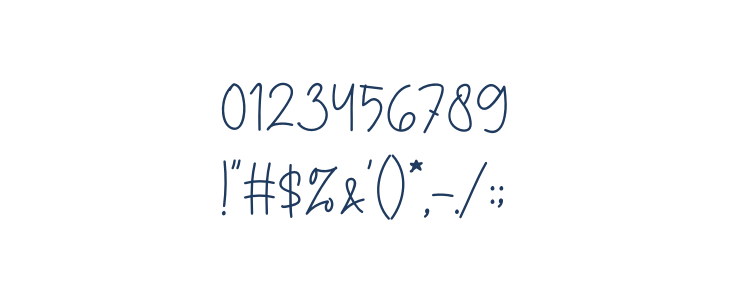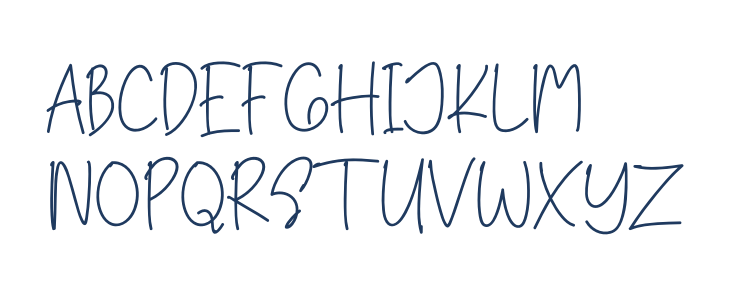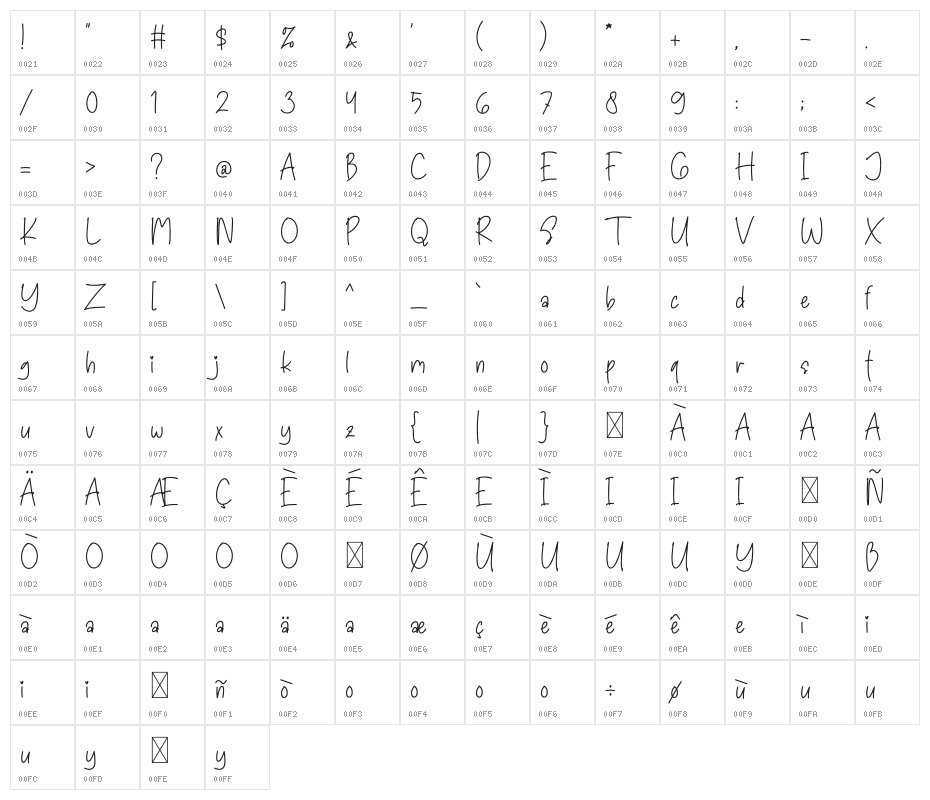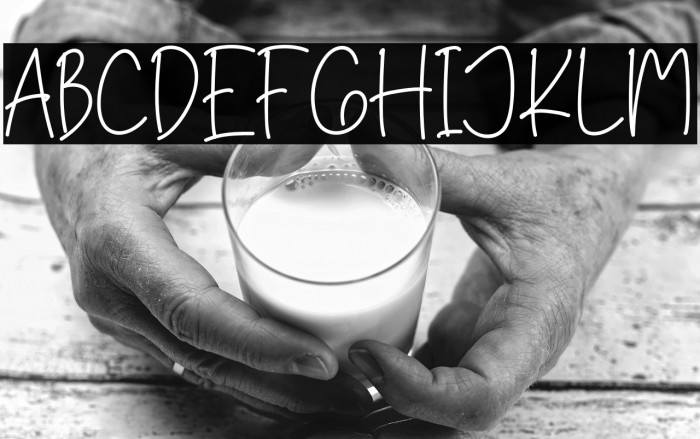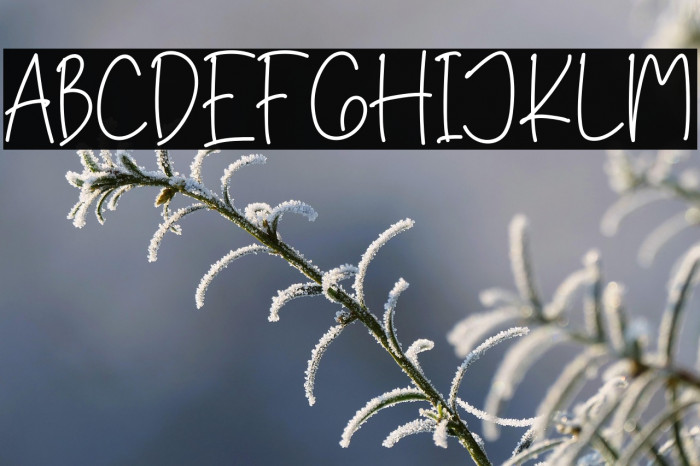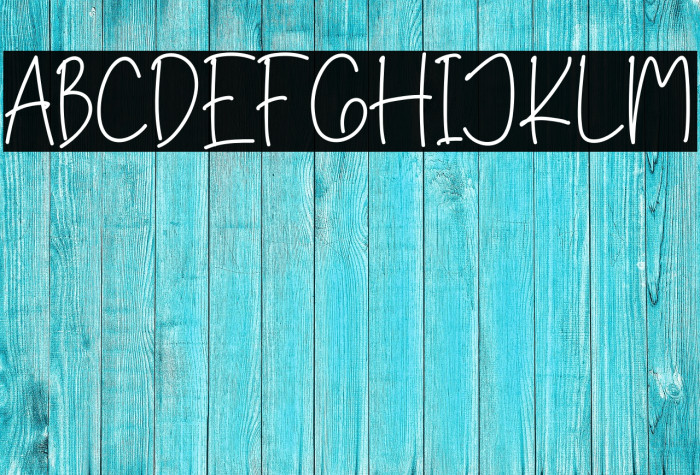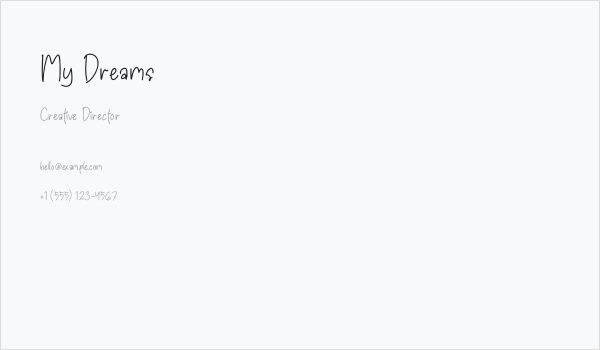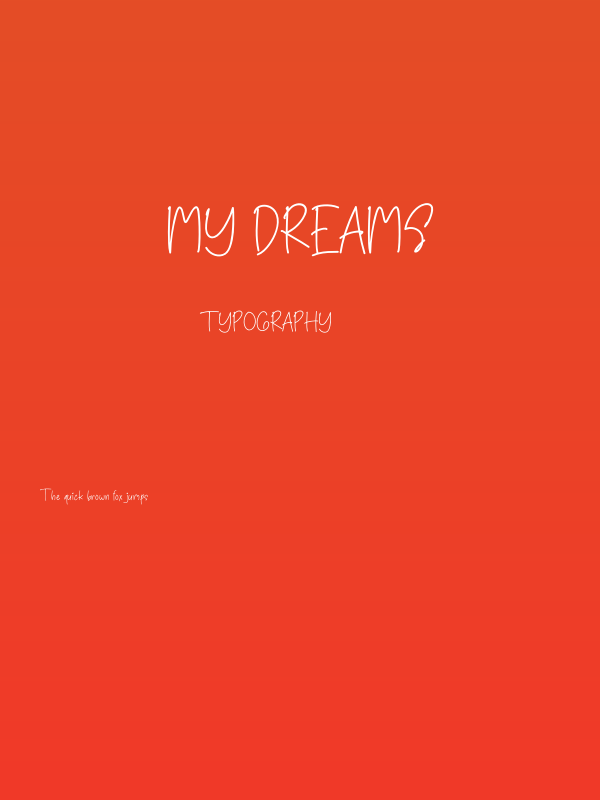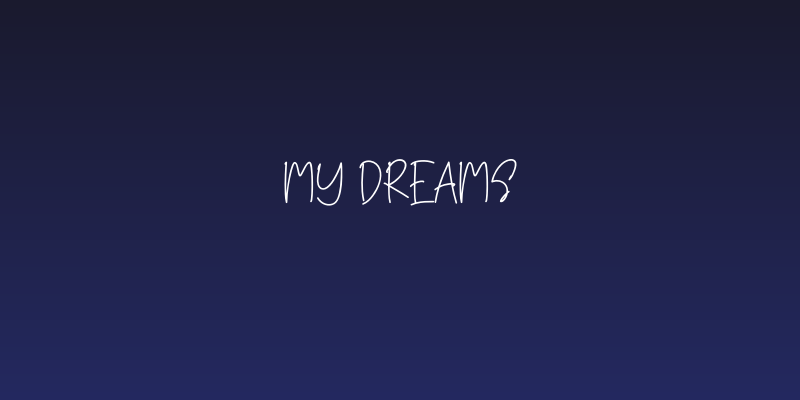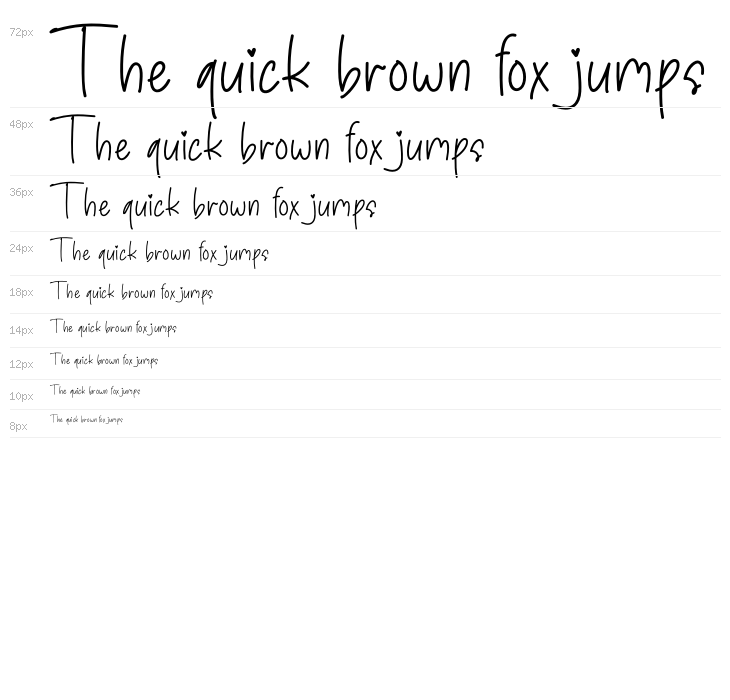
My Dreams Font
My Dreams Description
A playful, handwritten style font with tall, narrow letters and irregular strokes, giving it a casual and informal appearance. The characters have a natural, slightly whimsical flow, with varying stroke thickness and a loose, organic structure.
| Overall Style | Playful, Casual, Handwritten |
| Use Case | Logos, Headlines, Social media, Invitations |
| Proposed Projects | Greeting cards, children's books, personal branding, social media graphics, informal invitations. |